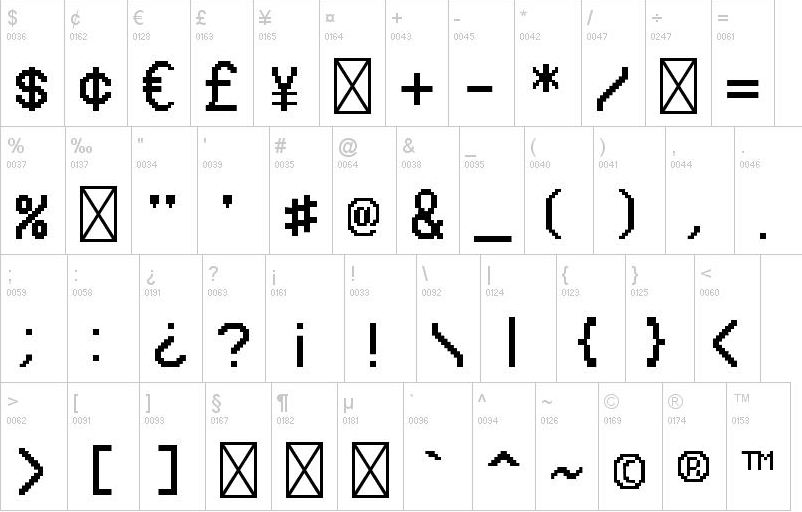
Vcr Osd Mono Font Generator . Experiment with our vcr osd mono font generator! Download vcr osd mono, a font inspired by vintage video cassette recorders, for desktop use. Create and customize vhs fonts online with text effect studio. Type in your text, select the font, adjust the size, color, and background, and customize it to your liking. The vcr osd mono font has been downloaded 148,480 times. The font is licensed under a creative commons. Vcr osd mono | dafont.com english français español deutsch italiano português. Download vcr osd mono font, a pixel font inspired by 1970’s american logos. Download and install the vcr osd mono font by mrmanet. Choose from different styles, colors, gradients, shadows, and more to make your text. Vcr osd mono font | dafont.com english français español deutsch italiano português. Use it for personal and commercial projects such as.
Vcr Osd Mono Font Generator Download vcr osd mono, a font inspired by vintage video cassette recorders, for desktop use. Download vcr osd mono, a font inspired by vintage video cassette recorders, for desktop use. Create and customize vhs fonts online with text effect studio. The vcr osd mono font has been downloaded 148,480 times. Experiment with our vcr osd mono font generator! The font is licensed under a creative commons. Vcr osd mono font | dafont.com english français español deutsch italiano português. Use it for personal and commercial projects such as. Download vcr osd mono font, a pixel font inspired by 1970’s american logos. Choose from different styles, colors, gradients, shadows, and more to make your text. Download and install the vcr osd mono font by mrmanet. Vcr osd mono | dafont.com english français español deutsch italiano português. Type in your text, select the font, adjust the size, color, and background, and customize it to your liking.
VCR OSD Mono free Font What Font Is Vcr Osd Mono Font Generator The vcr osd mono font has been downloaded 148,480 times. Download and install the vcr osd mono font by mrmanet. Create and customize vhs fonts online with text effect studio. Download vcr osd mono, a font inspired by vintage video cassette recorders, for desktop use. Download vcr osd mono font, a pixel font inspired by 1970’s american logos. Experiment with. Vcr Osd Mono Font Generator.
VCR OSD Mono Font Instant Download! FontSwan Vcr Osd Mono Font Generator Vcr osd mono font | dafont.com english français español deutsch italiano português. Type in your text, select the font, adjust the size, color, and background, and customize it to your liking. Create and customize vhs fonts online with text effect studio. Experiment with our vcr osd mono font generator! Download and install the vcr osd mono font by mrmanet. The. Vcr Osd Mono Font Generator.
VCR OSD Mono free Font What Font Is Vcr Osd Mono Font Generator Create and customize vhs fonts online with text effect studio. Vcr osd mono font | dafont.com english français español deutsch italiano português. Choose from different styles, colors, gradients, shadows, and more to make your text. The vcr osd mono font has been downloaded 148,480 times. Type in your text, select the font, adjust the size, color, and background, and customize. Vcr Osd Mono Font Generator.
VCR OSD Mono Font Download Vcr Osd Mono Font Generator Download vcr osd mono, a font inspired by vintage video cassette recorders, for desktop use. Vcr osd mono | dafont.com english français español deutsch italiano português. Experiment with our vcr osd mono font generator! Create and customize vhs fonts online with text effect studio. Choose from different styles, colors, gradients, shadows, and more to make your text. Type in your. Vcr Osd Mono Font Generator.